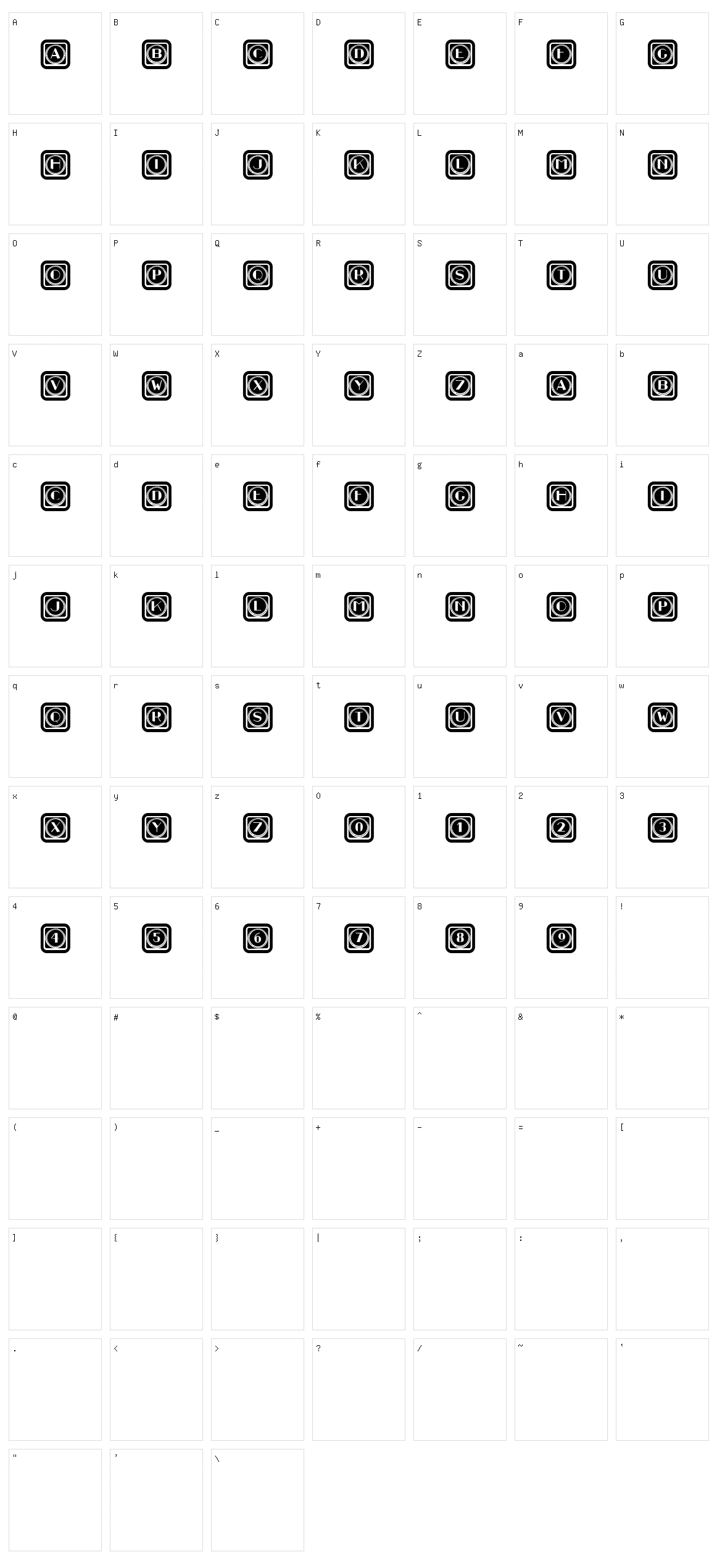
The free font Retrospective Capitals is carefully designed by Vladimir Nikolic, showcasing a thoughtful balance of creativity and usability and falls under the Initials font style. When you download the ZIP file, it contains only 257.82 KB of font files, making it lightweight and quick to download. Please review the license details below to understand permitted usage and distribution rights. If license information is not available, we recommend using this font for personal projects only or contacting the author directly for commercial usage permissions.